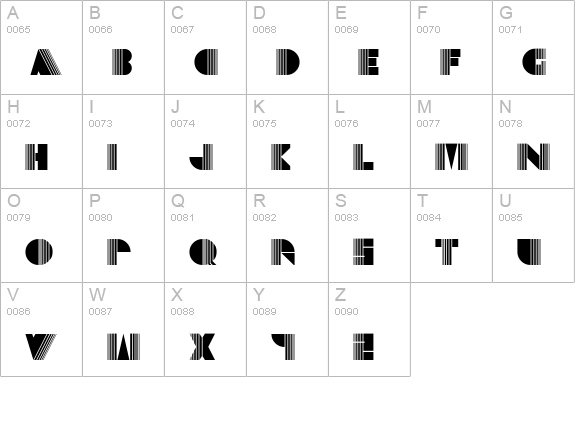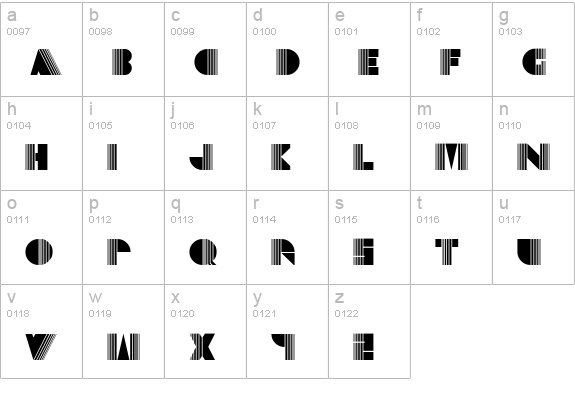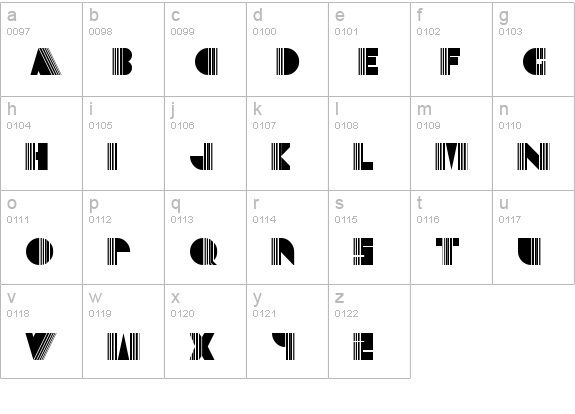
Echo Deco Font Details
Echo Deco is a stunning font that effortlessly captures the essence of art deco style with its sleek and geometric design. This font is perfect for adding a touch of elegance and sophistication to any project. Its clean lines and balanced proportions make it a versatile choice for both headings and body text. What sets Echo Deco apart is not only its striking appearance but also the fact that it is available for free. That's right, you can freely download this exquisite font at FontsMarket.com. Whether you're a professional designer or a creative enthusiast, having access to high-quality fonts without any cost is a game-changer. With Echo Deco, you can elevate your designs to a whole new level. Its timeless and refined aesthetic makes it ideal for various projects, including branding, invitations, posters, and more. The characters flow seamlessly together, creating a harmonious and visually appealing composition that is sure to capture attention. The versatility of Echo Deco extends beyond its captivating visual appeal. Its extensive character set includes uppercase and lowercase letters, numerals, punctuation marks, and special characters. This ensures that you have everything you need to bring your ideas to life and create stunning typographic compositions. Whether you're designing for print or digital media, Echo Deco is a font that will effortlessly complement your vision. Its legibility and distinct personality make it suitable for a wide range of applications, from corporate identities to editorial designs. With this font, you can add a touch of sophistication and professionalism to any project. Don't miss out on the opportunity to enhance your designs with Echo Deco. Download this incredible font for free at FontsMarket.com and unleash your creativity like never before. Elevate your typography game with Echo Deco and watch as your designs come to life with style and elegance.